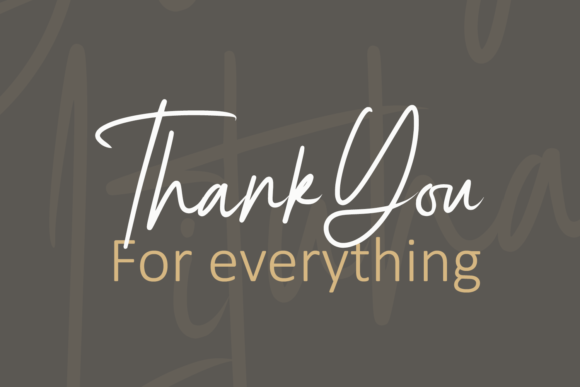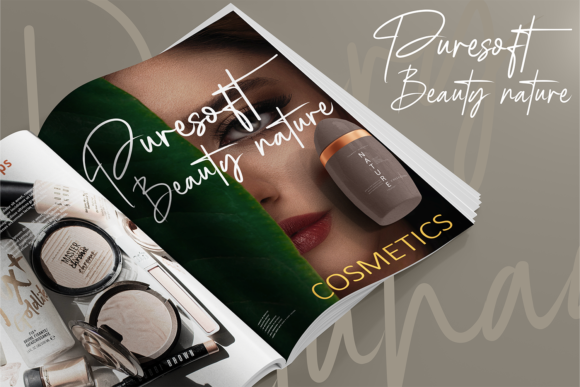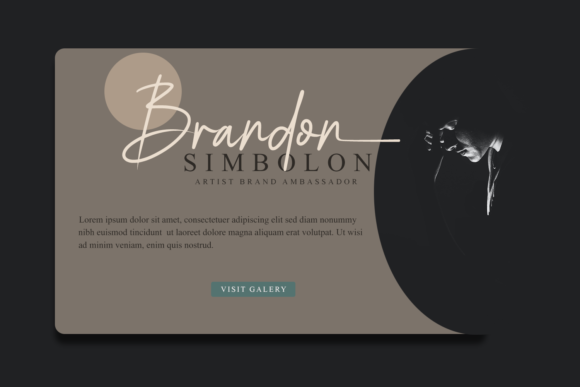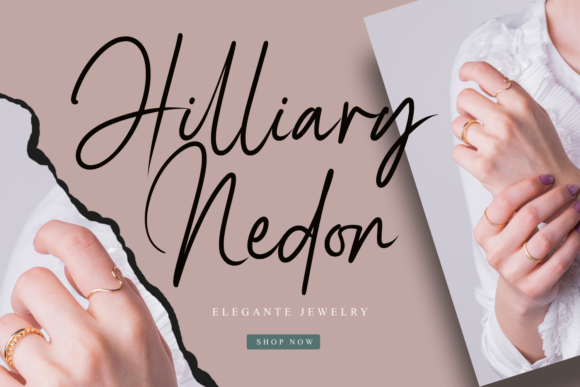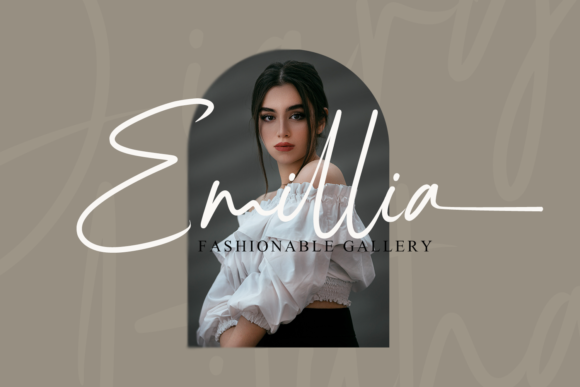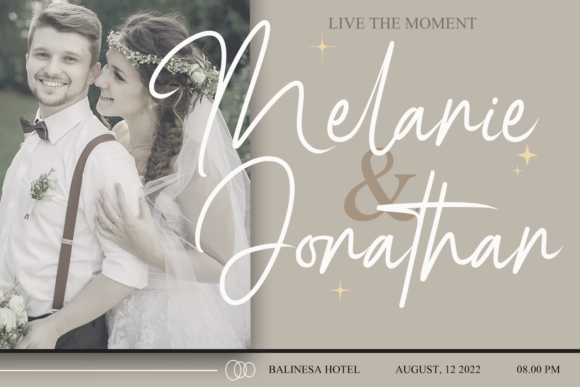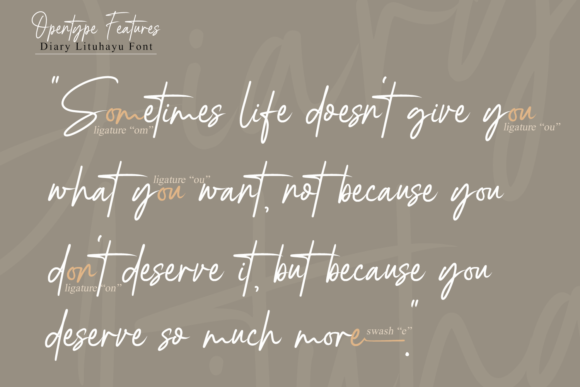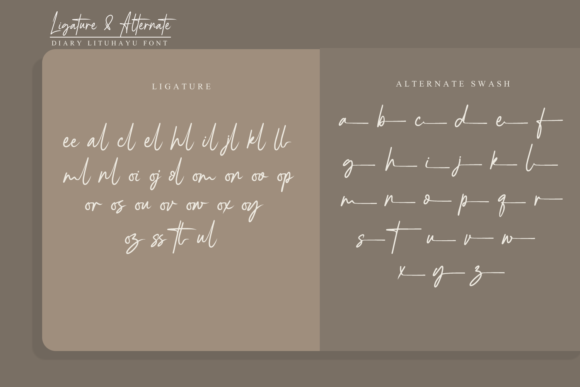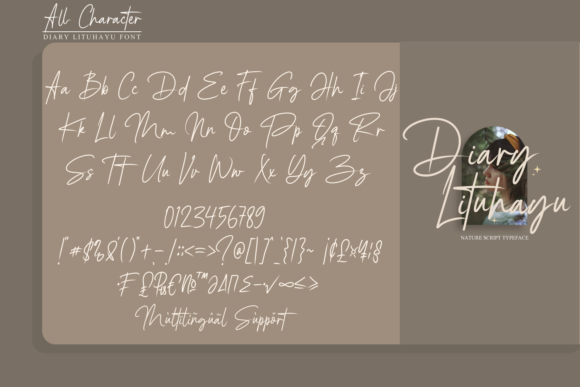
Diary Lituhayu Font
About Diary Lituhayu Font
Diary Lituhayu presents itself as a Script Font with an elegant and signature style, offering a beautiful, luxurious, and high-class aesthetic. Tailored for various creative purposes, this font is particularly well-suited for crafting handwritten-style logos, wedding stationery, photographer watermarks, modern websites, fashion branding, name cards, wedding invitations, and all the identity elements of your business products.
The font’s signature style exudes sophistication and charm, making it a versatile choice for projects that demand a touch of elegance. Whether you’re establishing your brand’s identity through logos or creating personalized wedding stationery, Diary Lituhayu brings a level of refinement and beauty to your designs.
Diary Lituhayu’s PUA encoding is a noteworthy feature, ensuring easy access to a plethora of amazing glyphs and ligatures. This functionality facilitates a smooth and user-friendly experience, allowing designers to seamlessly incorporate unique elements into their designs. The PUA encoding expands the design possibilities, enabling you to create distinctive and individualized expressions for your brand.
For businesses in the fashion industry, Diary Lituhayu becomes a valuable asset, adding a touch of modern sophistication to fashion branding. The font’s elegant strokes make it suitable for name cards and other identity materials, elevating the overall presentation of your brand.
In summary, Diary Lituhayu is more than just a font; it’s a design companion that enhances the aesthetics of your projects with its elegant and signature style. Let it be the choice that elevates your logos, wedding stationery, photographer watermarks, and various other design elements, infusing them with a luxurious and high-class appeal. The PUA encoding ensures accessibility to a rich set of glyphs and ligatures, providing you with the tools to create truly exceptional and personalized designs.